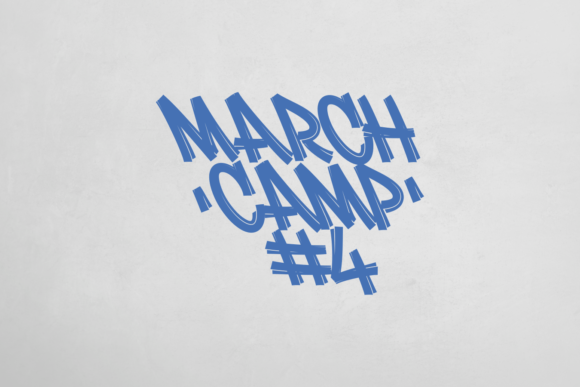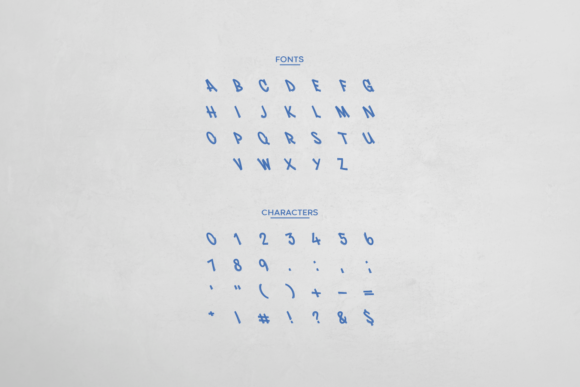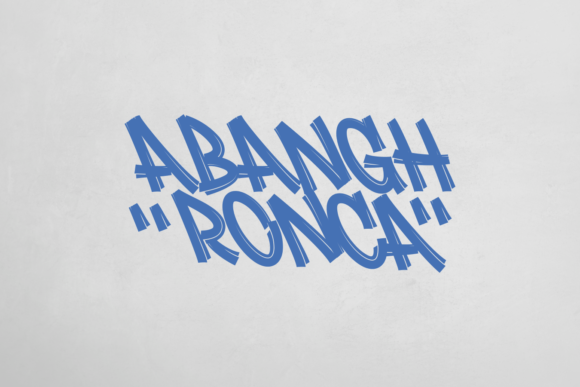
Introduction to Gamrac Font
Gamrac is a unique handwritting font with a graffiti-like appearance.
Use this font for any crafting project, apparel design, logotype, advertising, wall decoration, and pretty much anything that requires a personalized look Take your designs to the next level with this stunning font.
Key Features of Gamrac Font
Why Choose Gamrac Font?
Gamrac Font offers exceptional quality and versatility, making it a valuable addition to your design toolkit. Whether you’re creating for personal projects or commercial use, Gamrac Font delivers professional results.